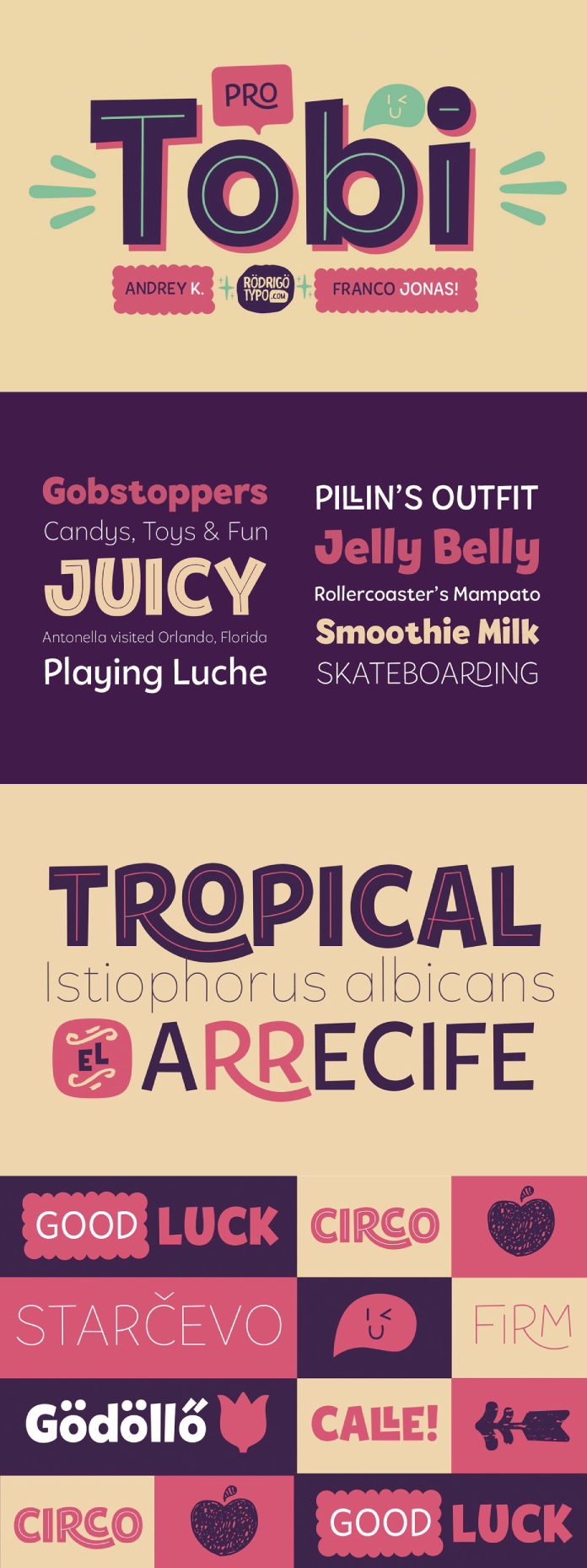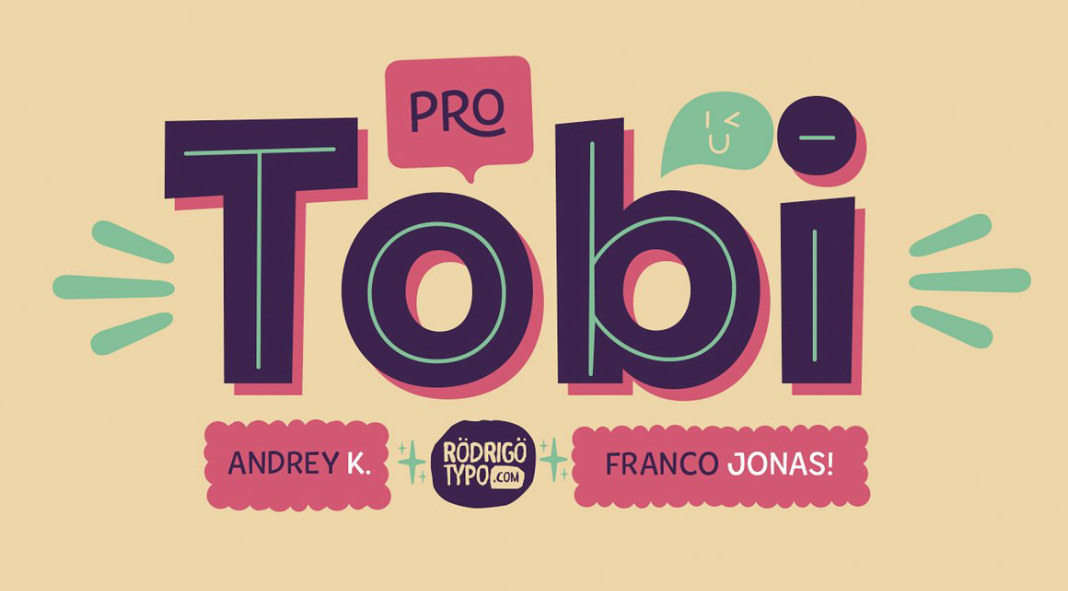
Say hello to the Tobi Pro font family, a fun-loving kid-friendly typeface that comes with seven variants, shadows, dingbats, and plenty of OpenType features.
Are you looking for a truly unique font to use in design projects dedicated to children? Look no further than Tobi Pro, a kid-friendly font family created by Rodrigo Araya Salas of Rodrigo Typo. With its charming and varied characters, Tobi Pro is the perfect choice for any project that needs to stand out from the crowd. From its bold lettering to its playful designs, each character in the font family brings something special to the table—making it an ideal choice for creatives everywhere. Tobi Pro’s geometric characters offer an organic touch. This typeface is ideal for any visual communication need related to children and youth designs, including posters, packaging, and logos.